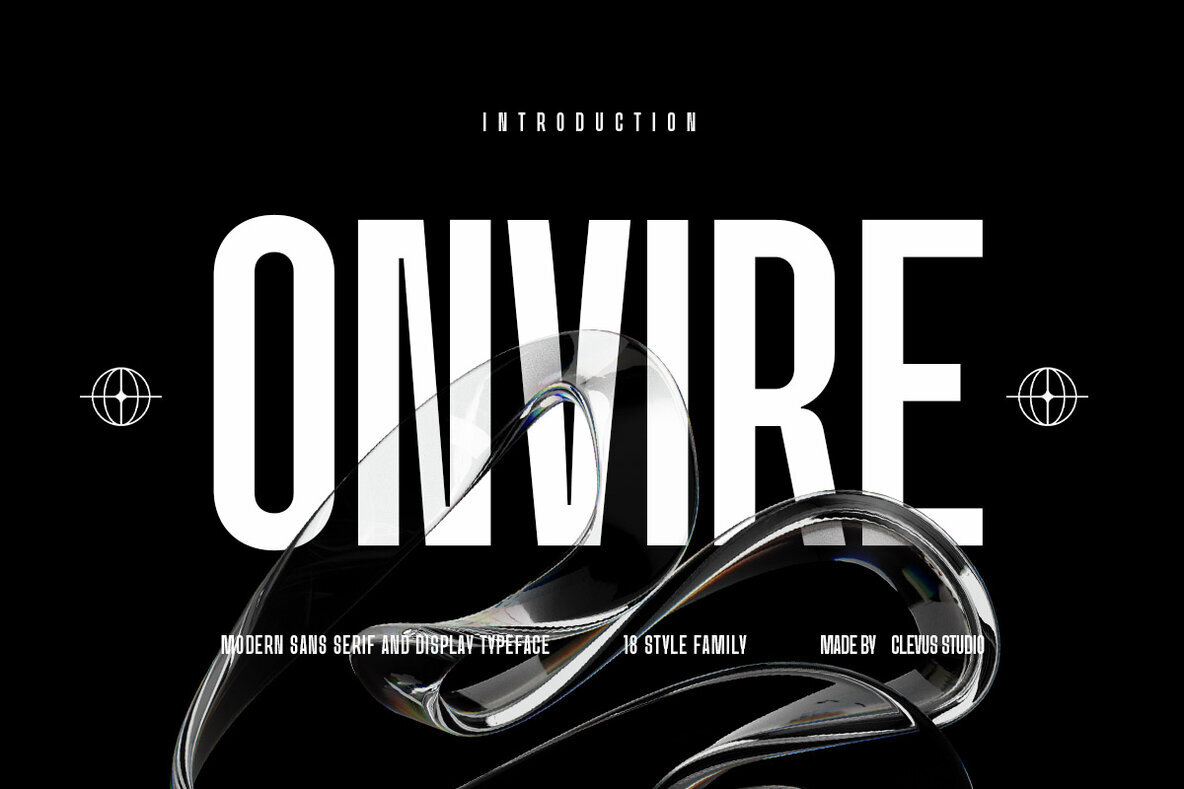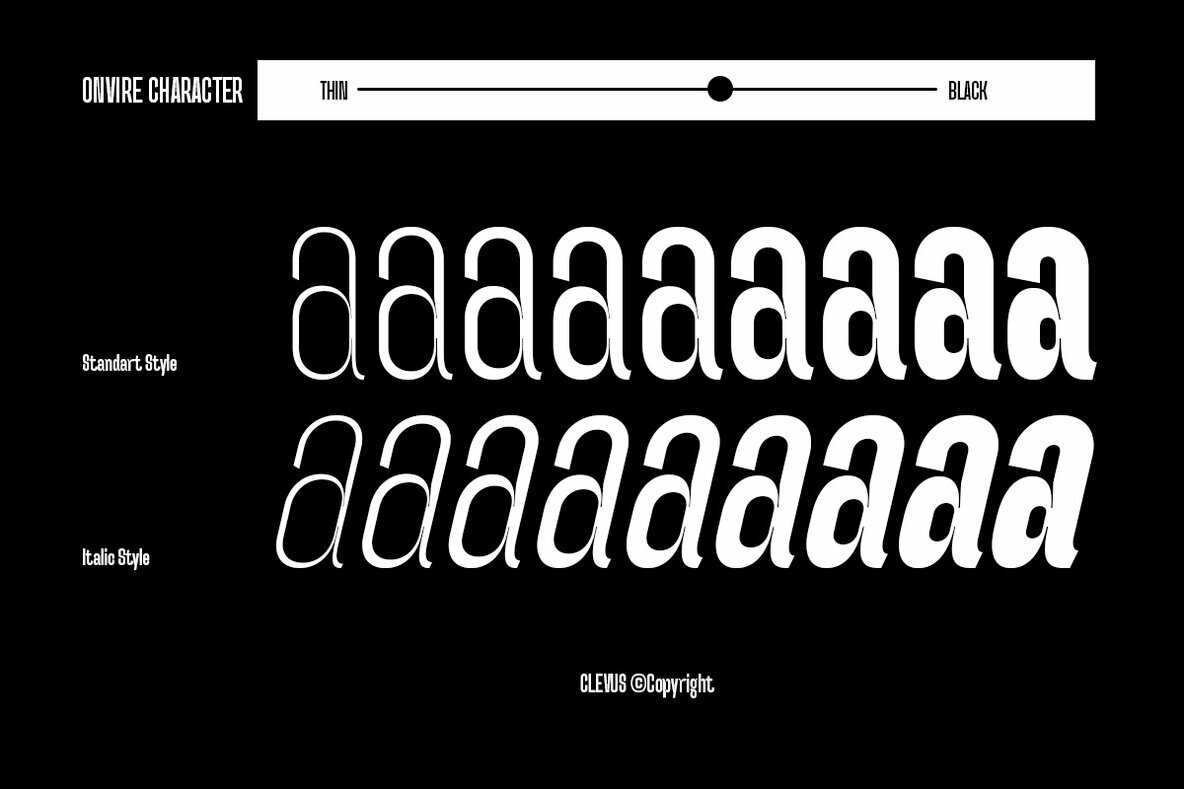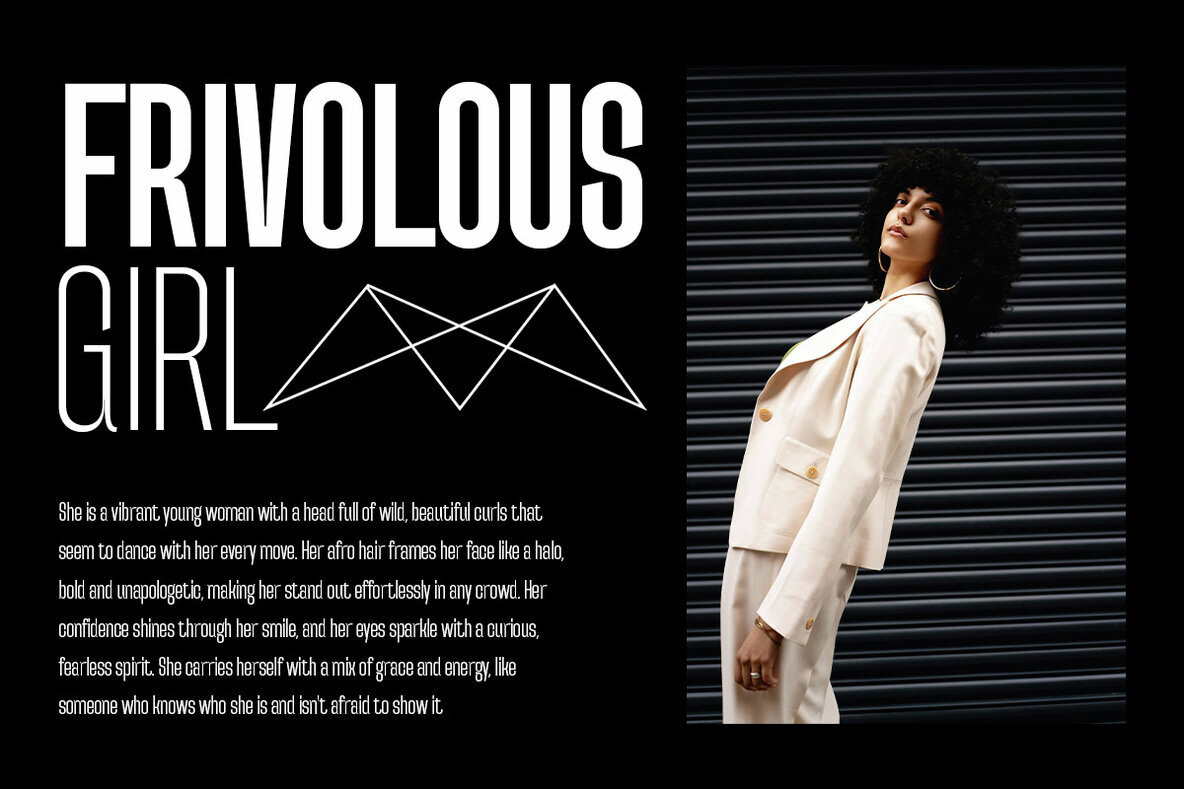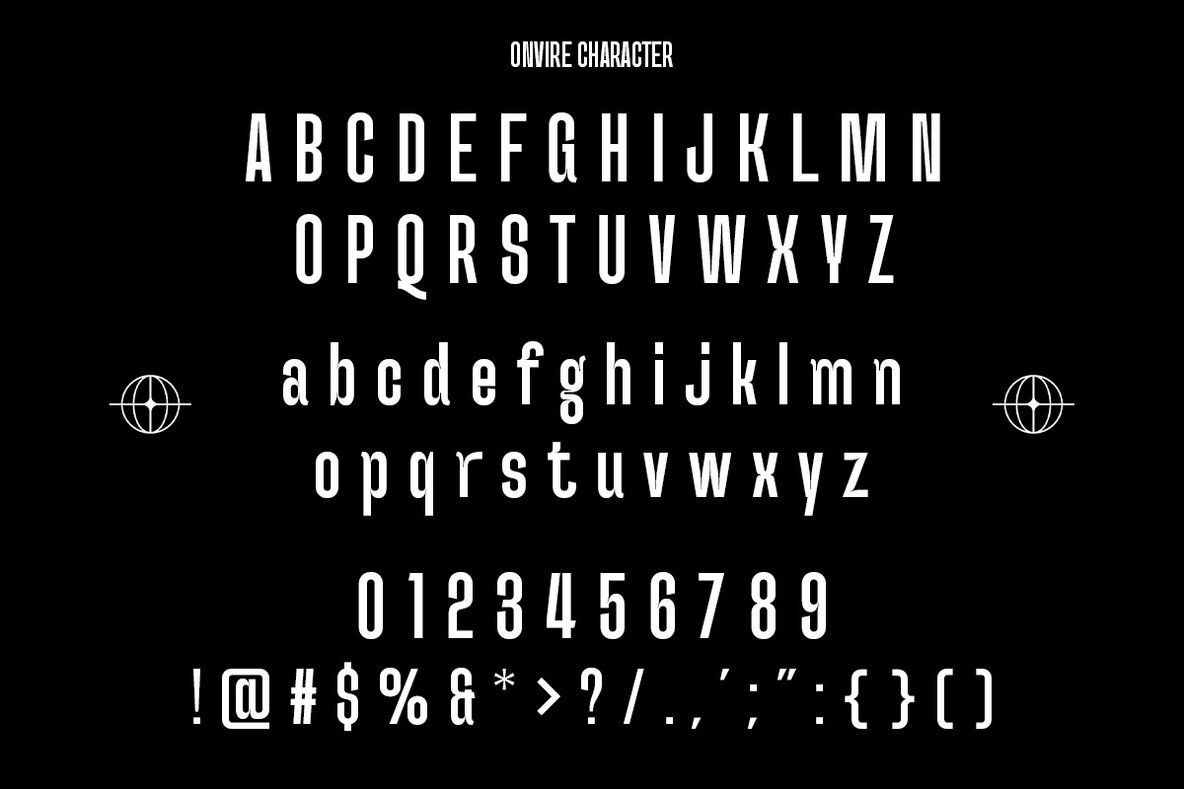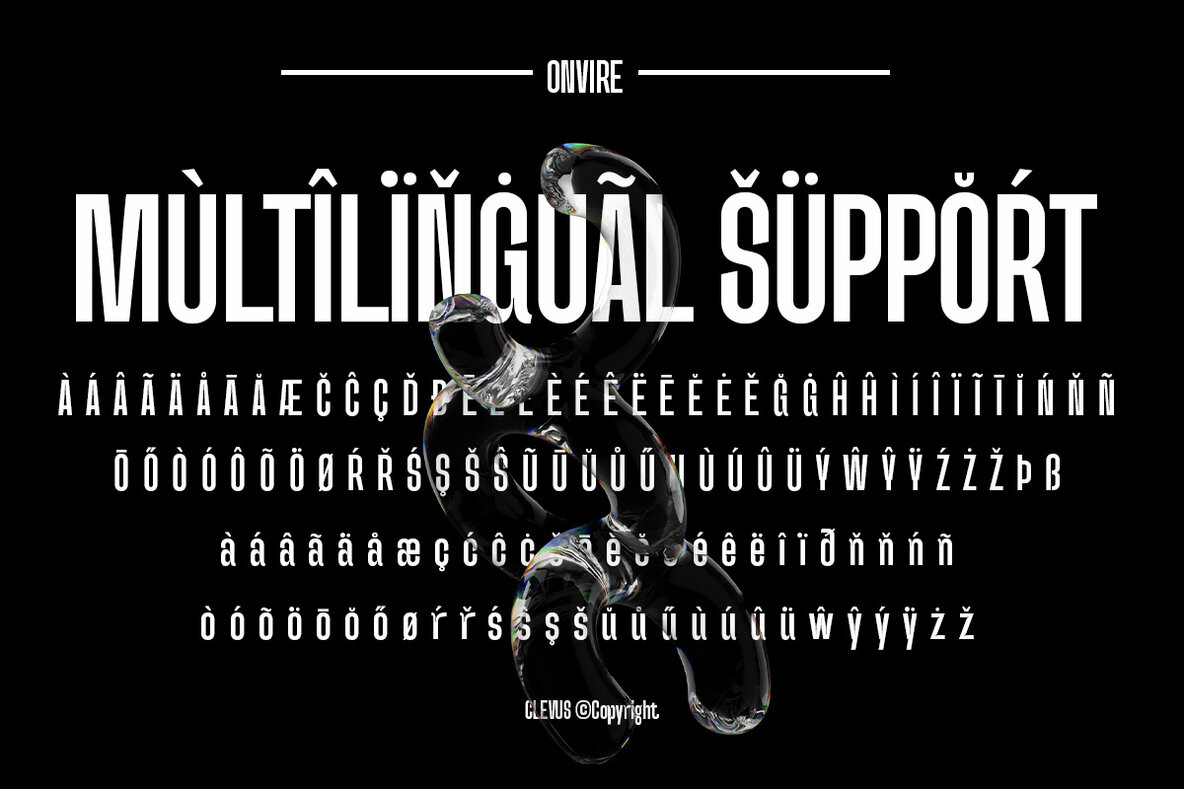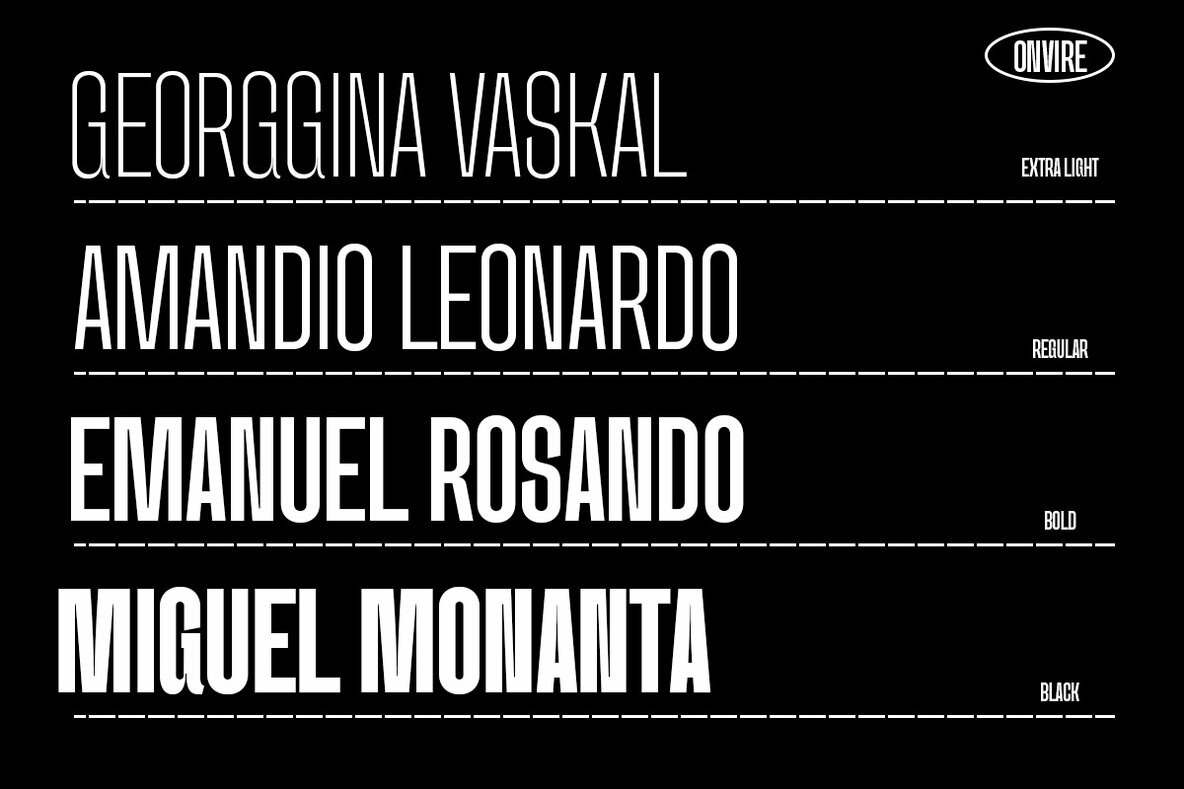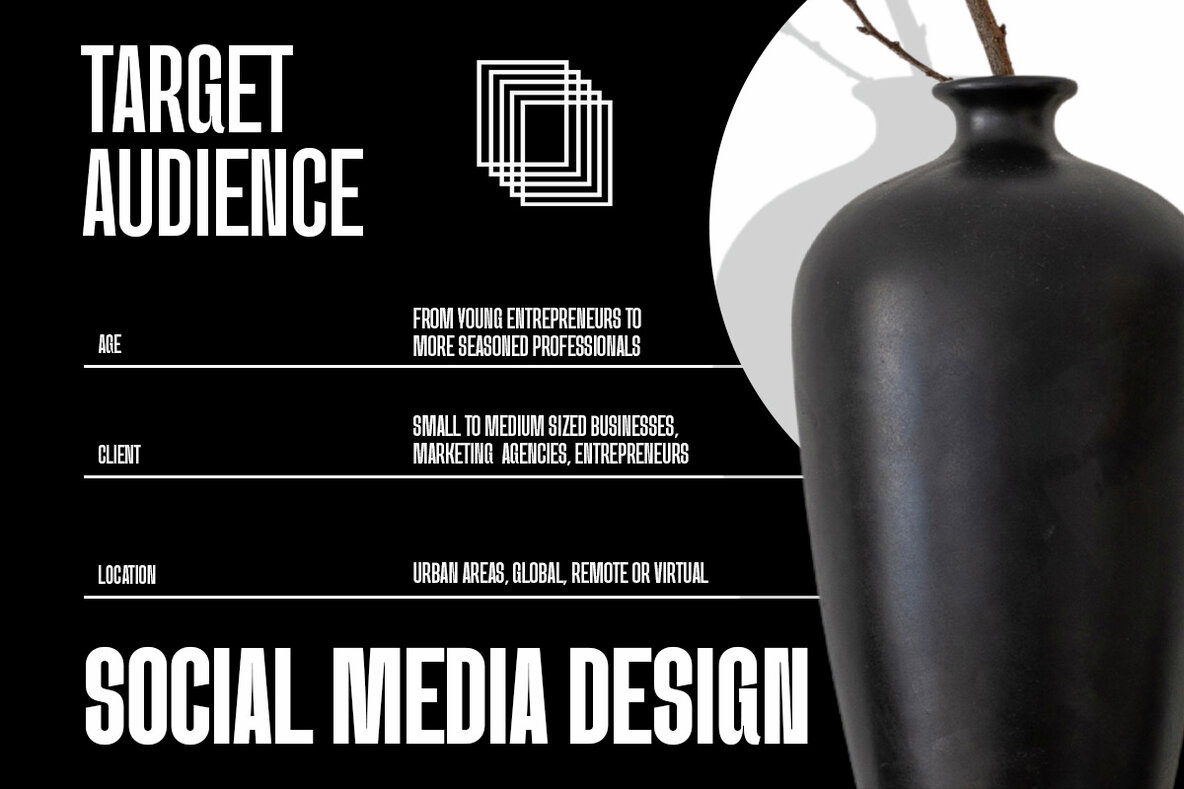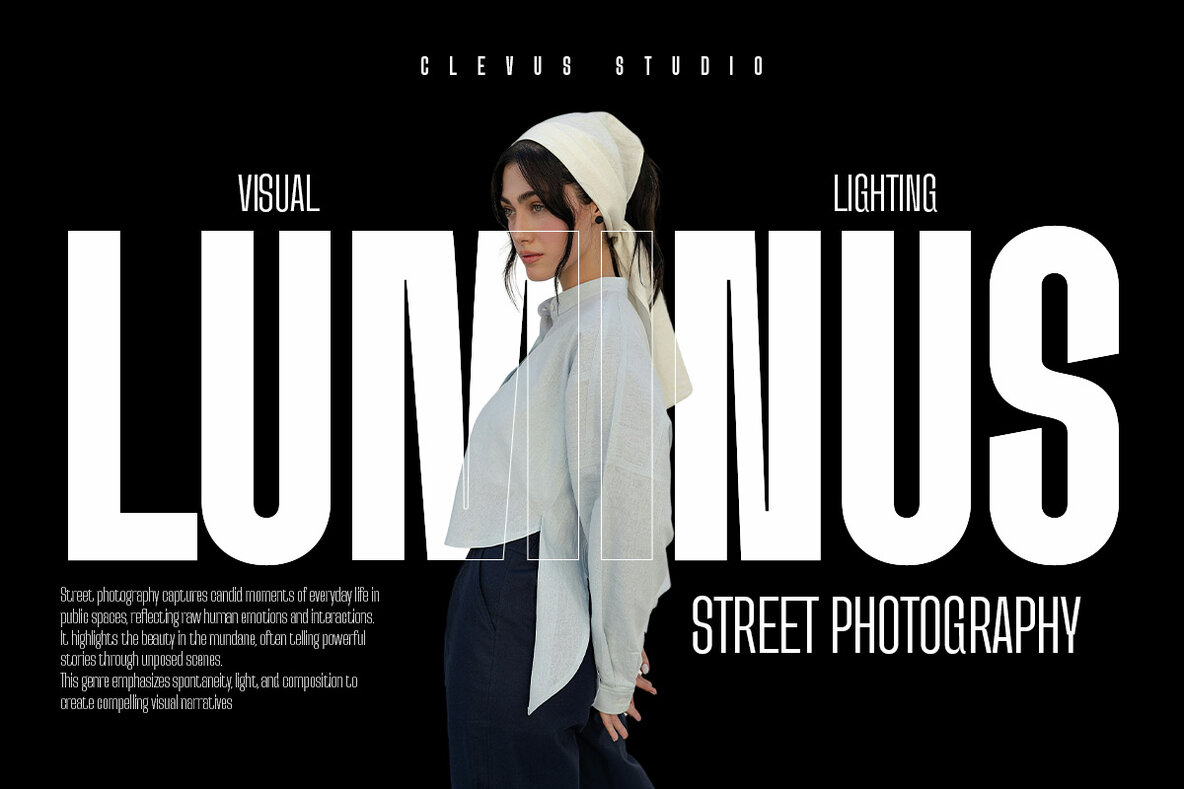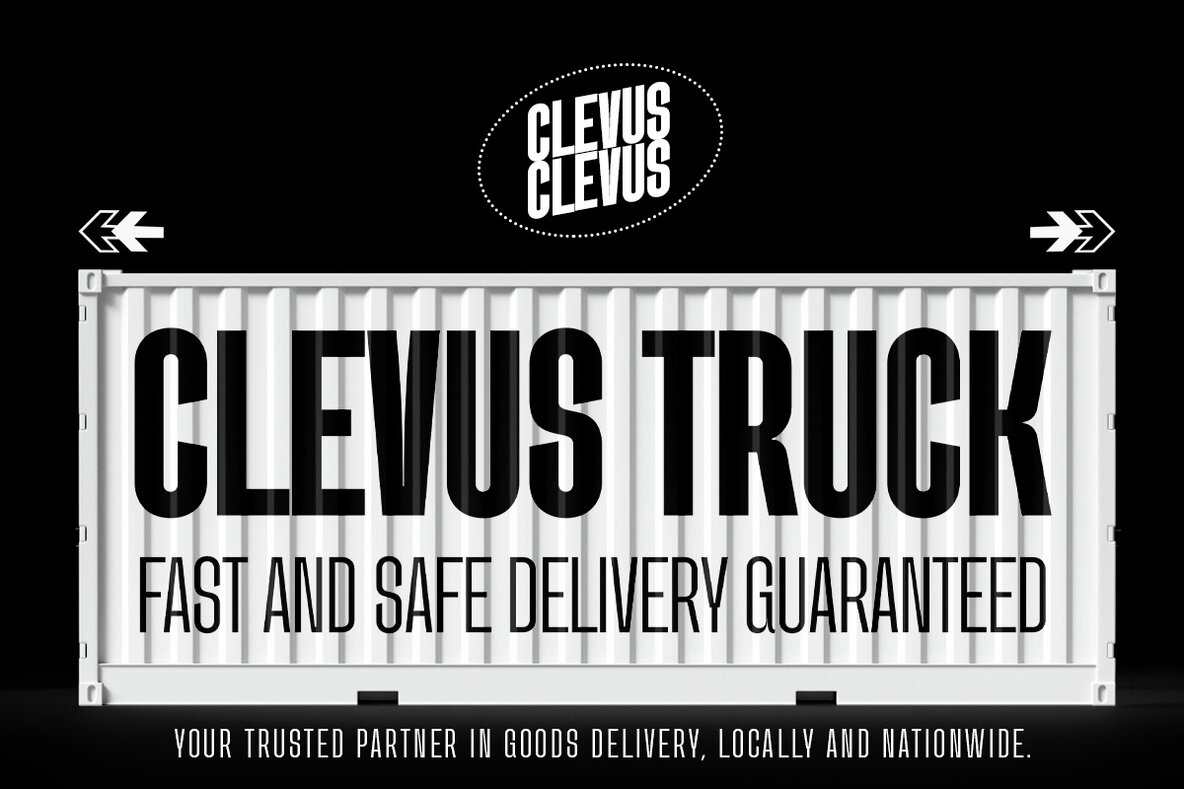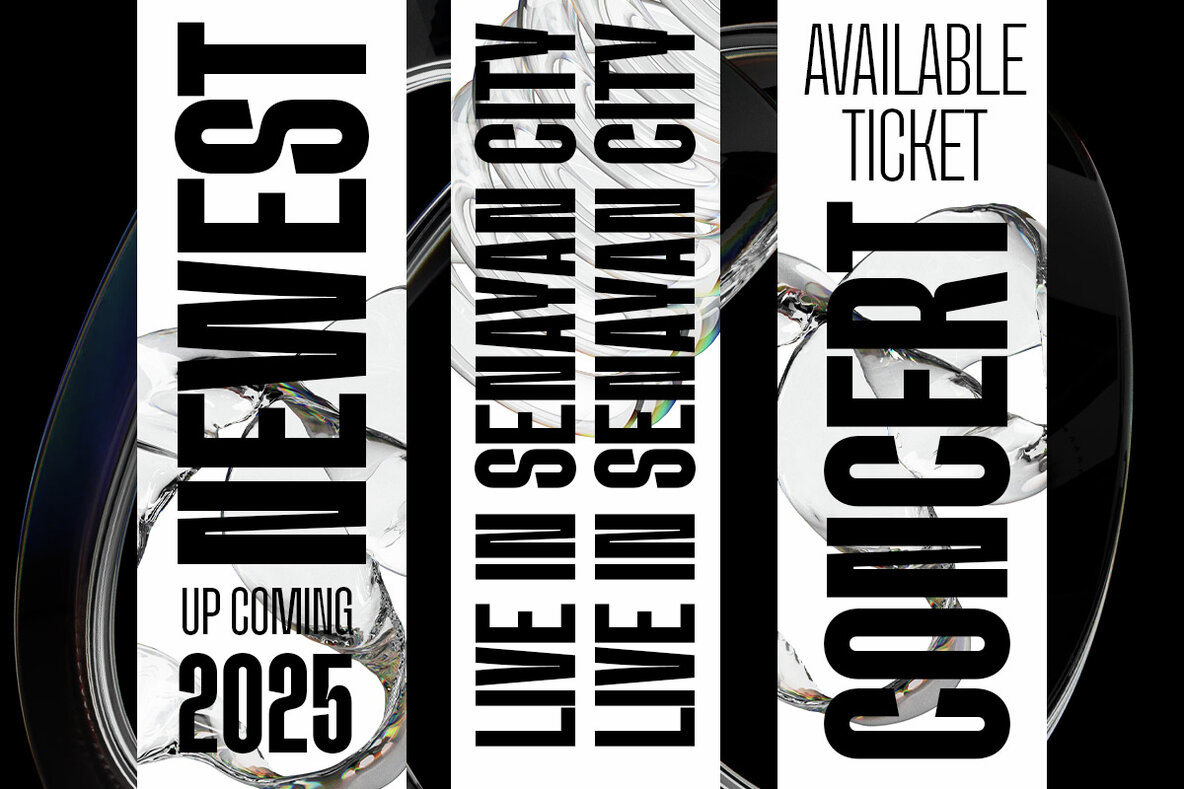
Onvire Family Condensed Font
Introducing the Onvire Family Condensed Font, a modern, bold typeface inspired by the timeless charm of classic grotesque designs. Featuring 18 meticulously crafted weights, this font is built for versatility across a wide range of design projects. Onvire boasts an extensive array of OpenType features, including 20 unique alternates and ligatures, allowing for seamless creativity in crafting logos, social media posts, and branding materials. This font adapts effortlessly to diverse platforms, from magazine layouts to wedding invitations.Onvire Family Condensed Font: Modern Bold Elegance
With its impressive versatility and design-friendly features, the Onvire Family Condensed Font is a valuable asset for any design portfolio. Embrace its modern aesthetic to enrich your creative projects effortlessly.